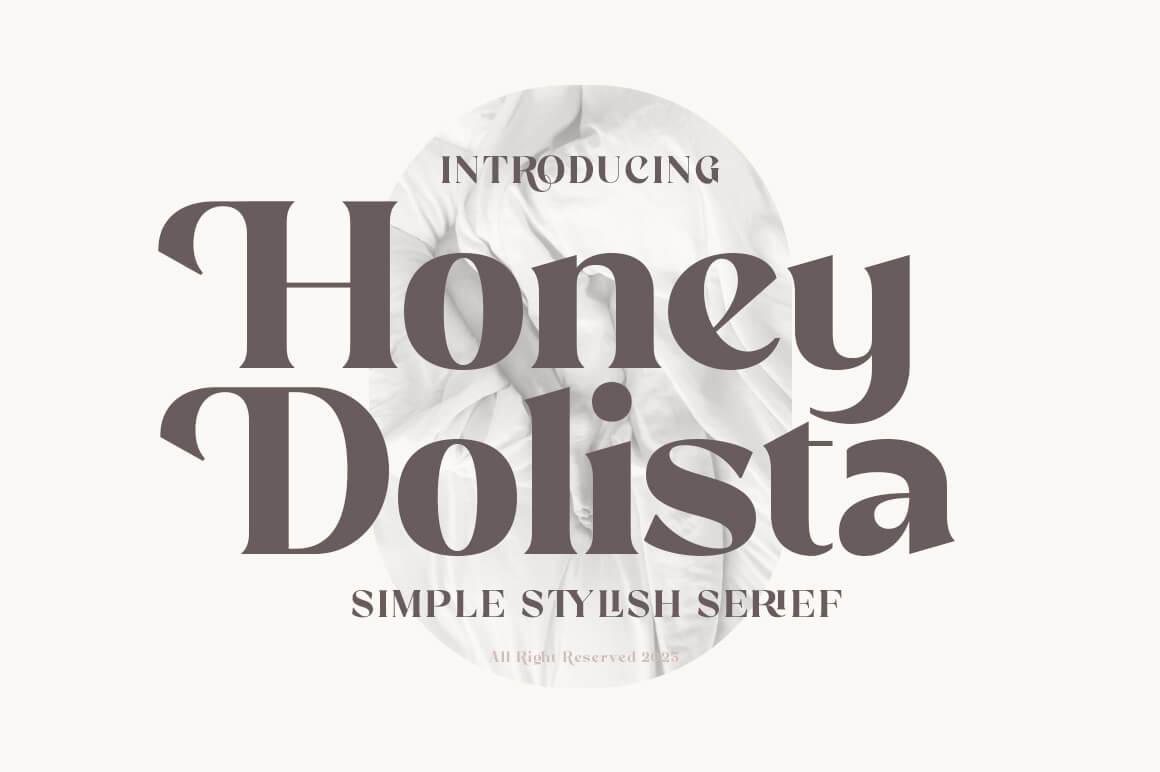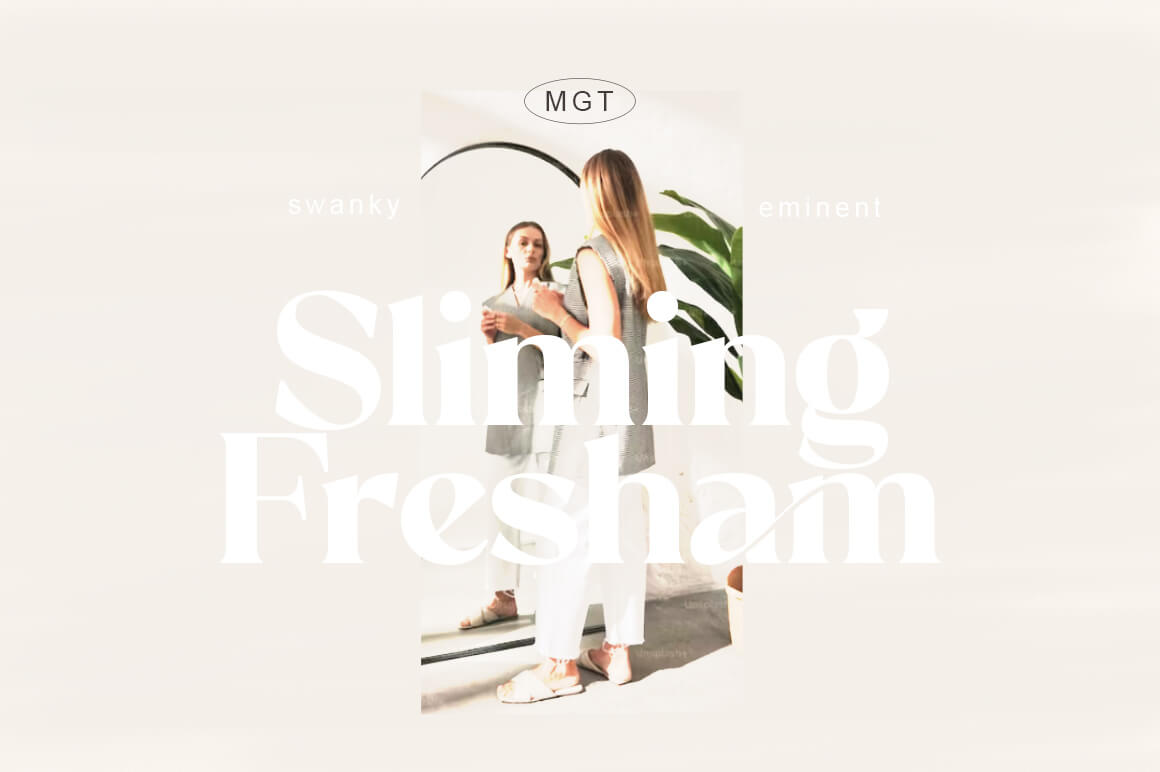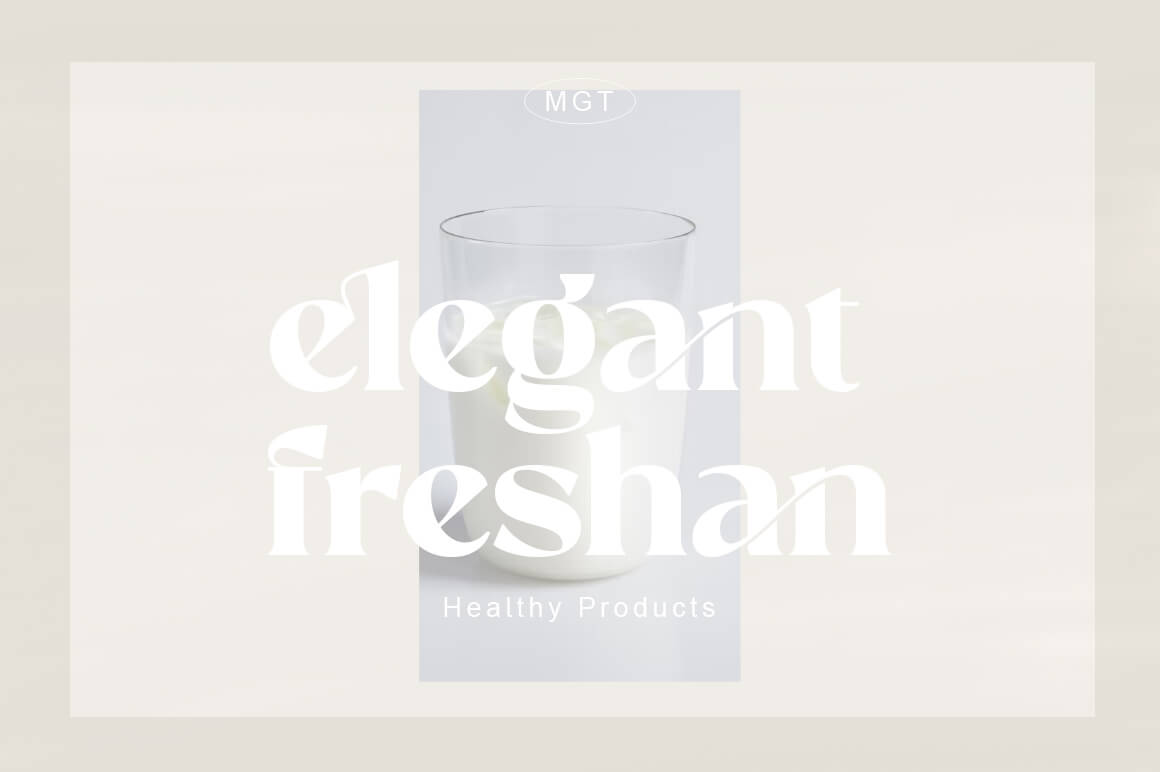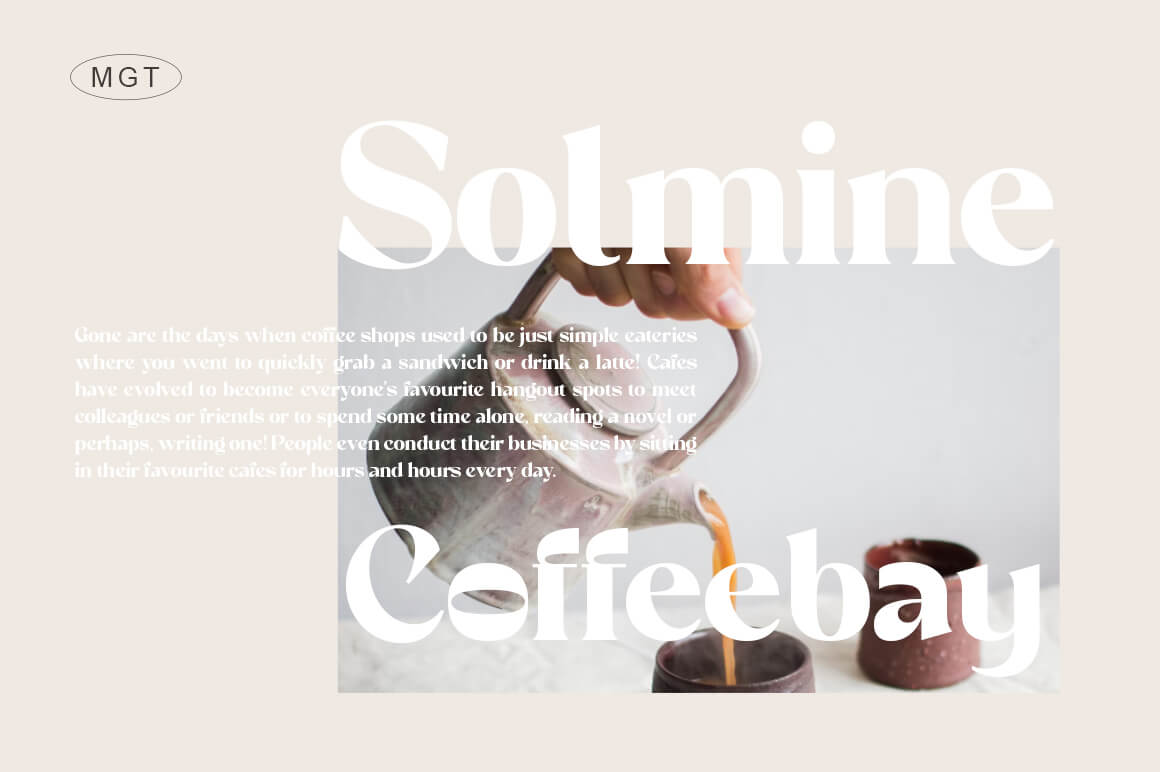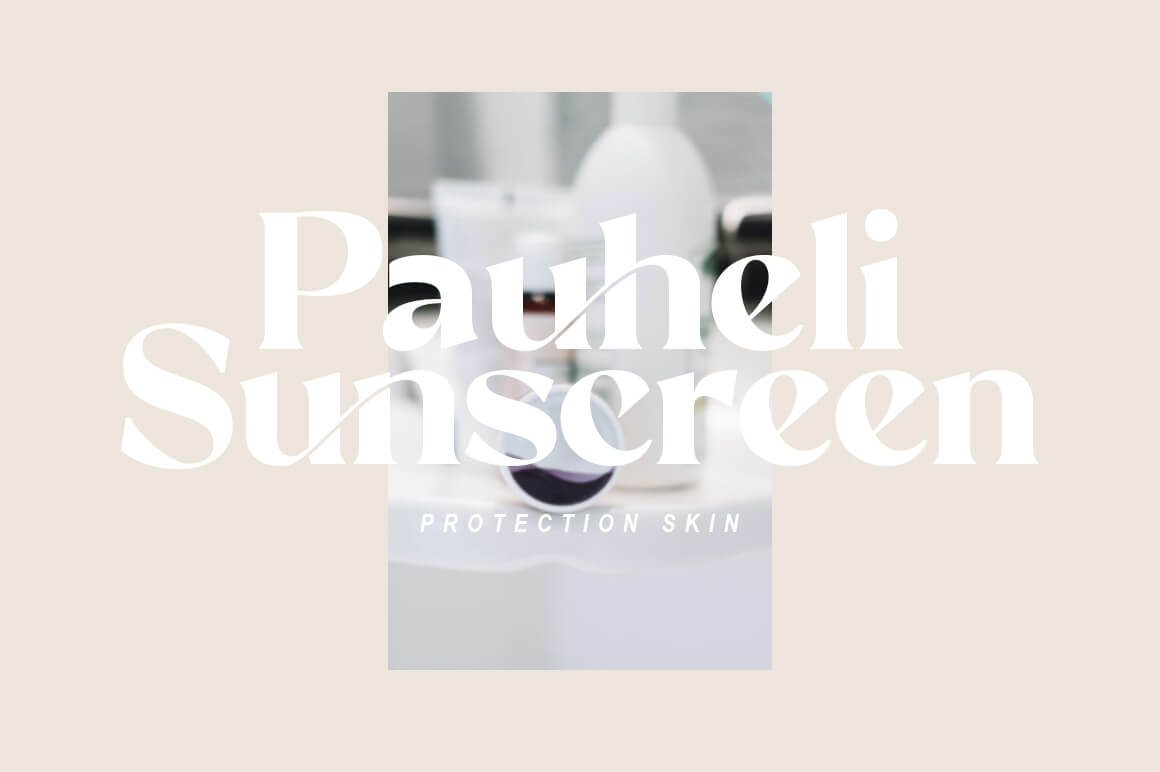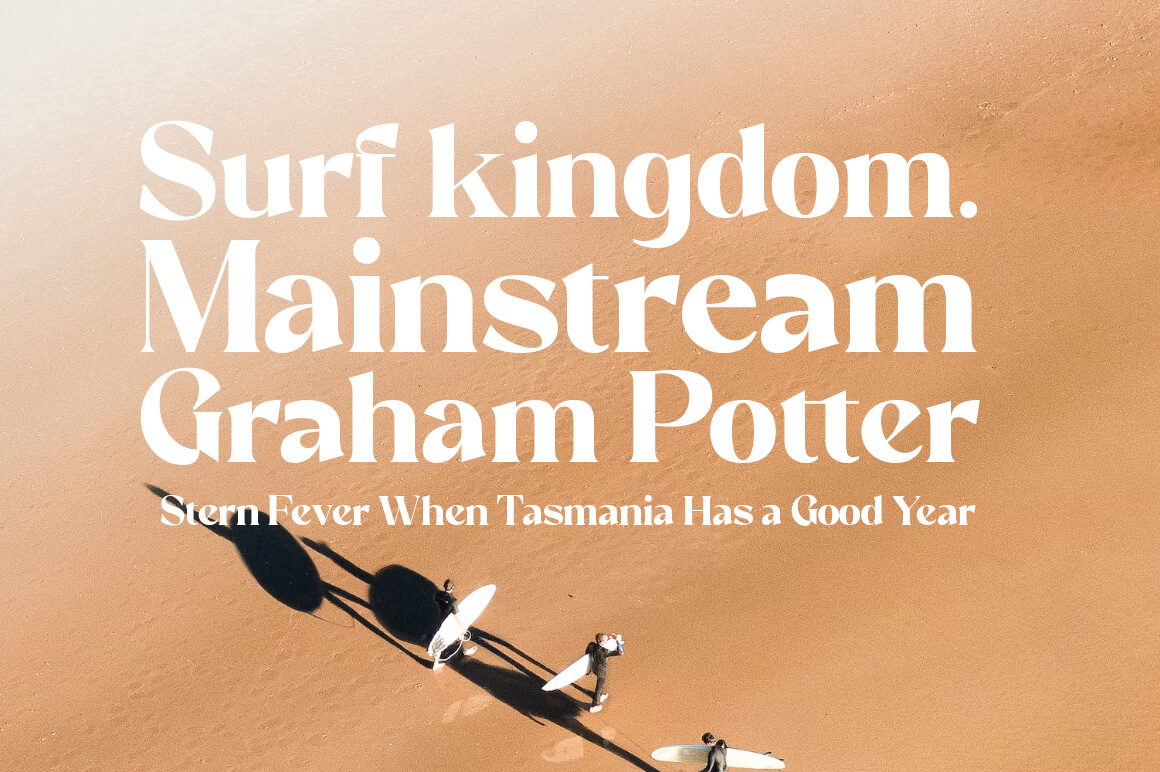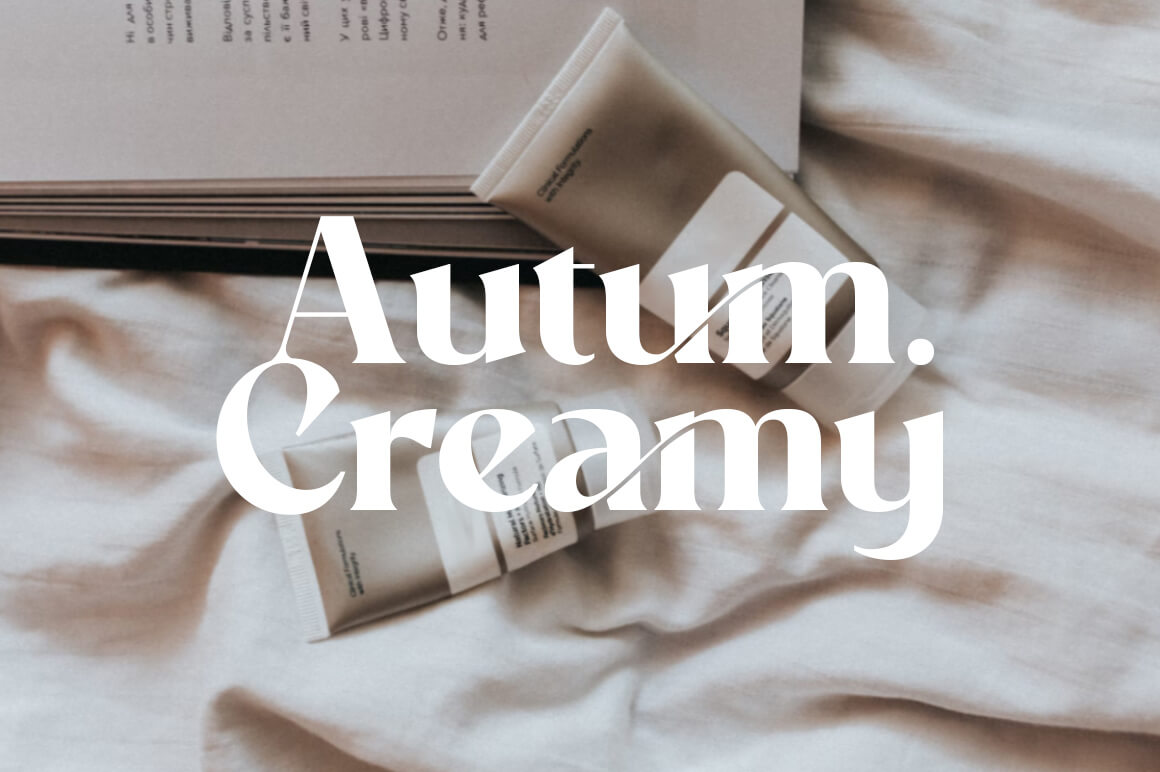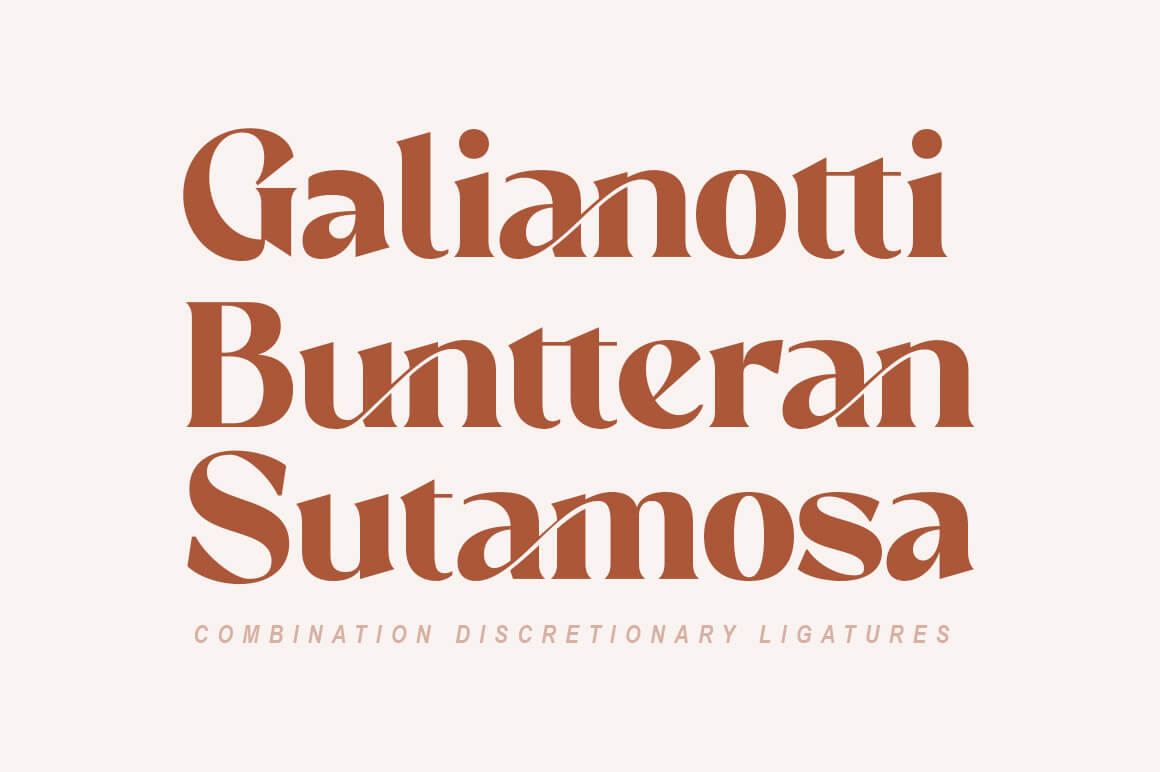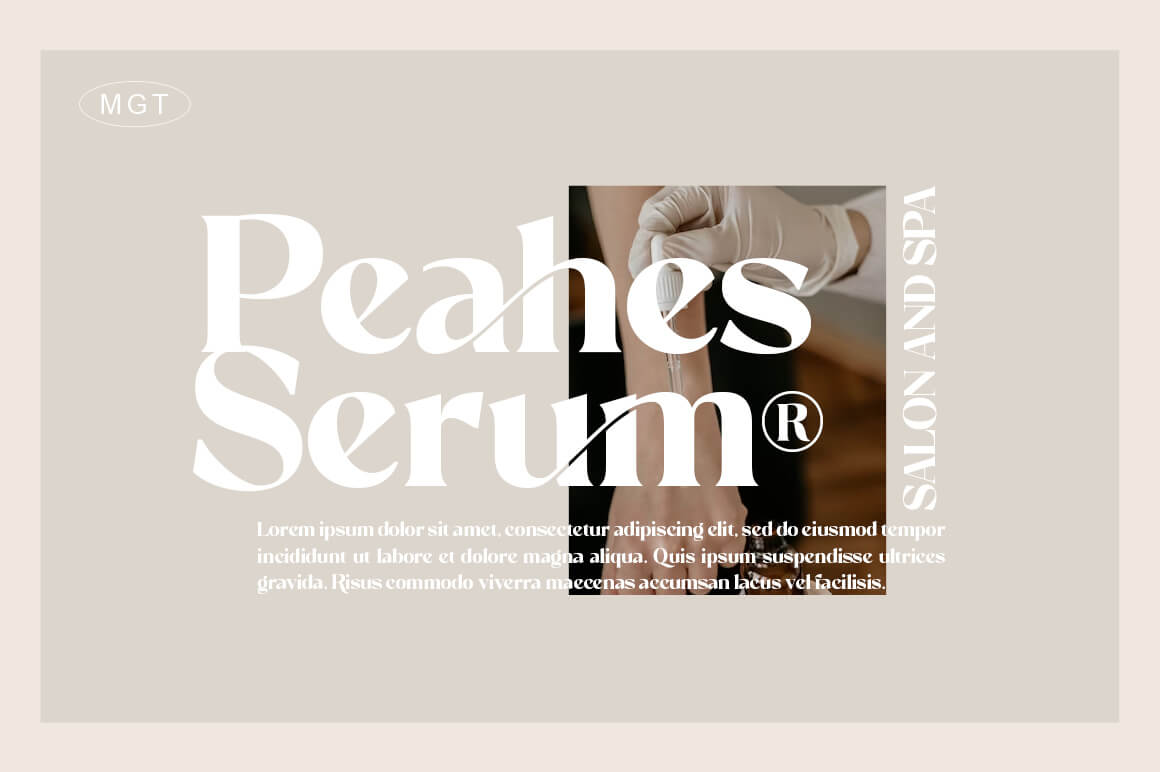
Honey Dolista is an elegant serif look with lots of ligatures and alternative bindings that will make your presentation or logo stand out! Bring your brand to life and add a touch of elegance and style with the Honey Dolista font. customize it for your titles, logos, business cards, printed quotes, all kinds of invitations, cards, packaging and your website or social media branding.
Features Include:
-Uppercase & Lowercase -Swash, Ligature -Alternates Binders -Numbers & Symbols -Multi language